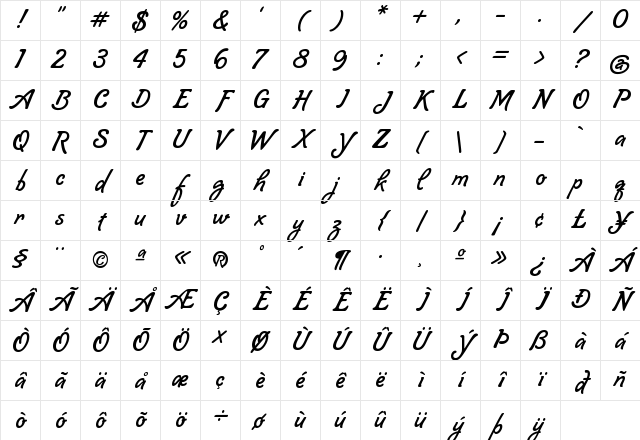
Complete Lombriz Regular glyph index. Displaying only characters natively supported by Lombriz Regular font.
Lombriz is a composed and adaptable typeface that performs quietly and consistently across a wide range of design contexts.